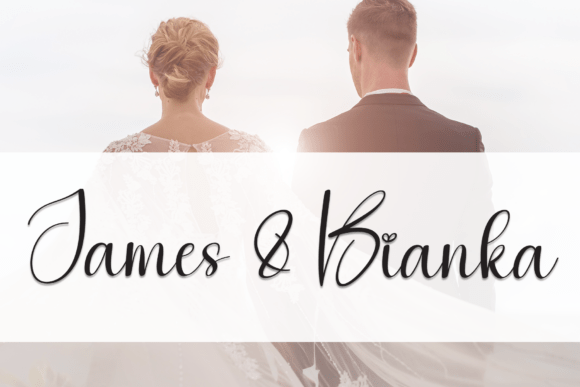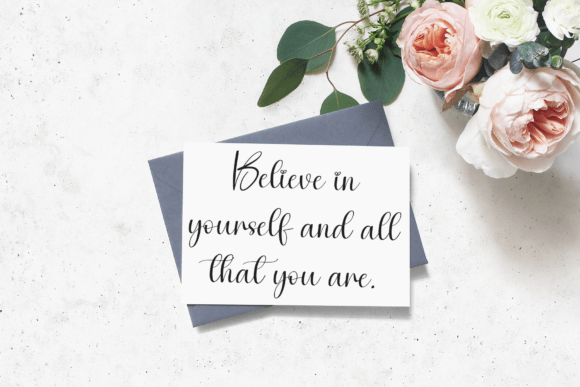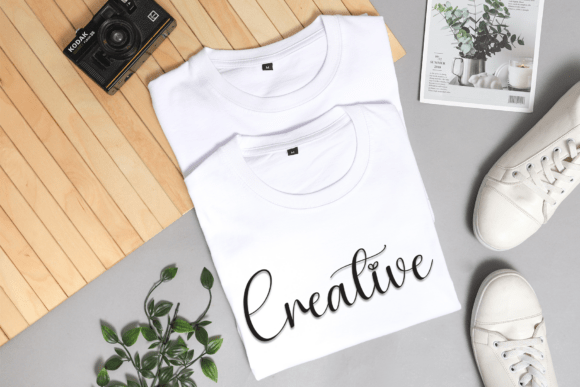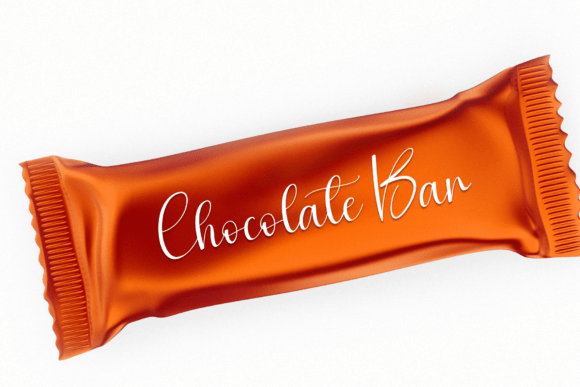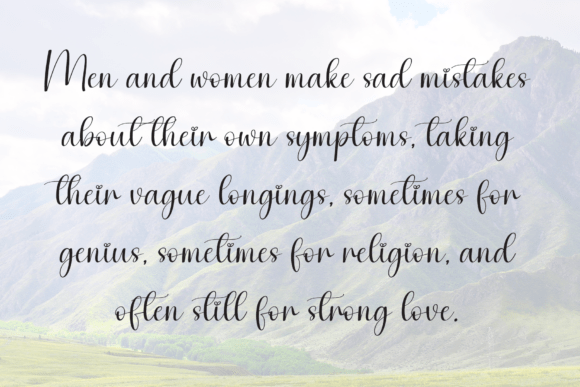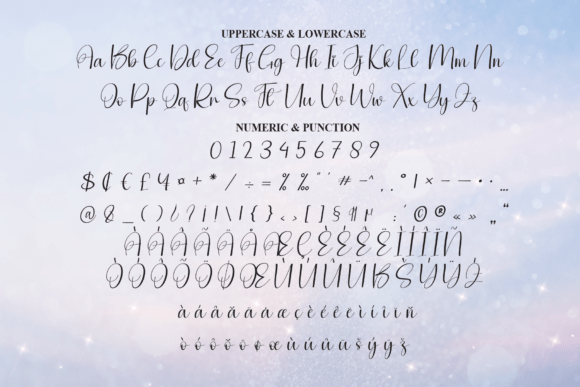
Discover the Enchanting Font: A Delicate Script Font for Dreamy Designs
In the world of typography, few fonts capture the essence of whimsy and elegance as perfectly as the Enchanting Font. This delicate script font is designed to add a touch of magic to your designs, with its soft handwritten flow and intricate swashes. Whether you’re crafting a fairy tale theme, creating a brand identity that exudes wonder, or simply looking for a font that adds a sprinkle of elegance to your project, Enchanting is the perfect choice.
The Characteristics of Enchanting Font
Enchanting Font is a script font that boasts a range of characteristics that set it apart from other fonts in its category. Some of its key features include:
- Delicate and Refined: Enchanting Font is crafted with precision and care, resulting in a delicate and refined appearance that is perfect for designs that require a touch of sophistication.
- Magical Swashes: One of the standout features of Enchanting Font is its use of magical swashes. These elegant flourishes add a touch of whimsy and wonder to your designs, making them perfect for fairy tale themes and other projects that require a sense of enchantment.
- Soft Handwritten Flow: Enchanting Font has a soft handwritten flow that gives it a personal and organic feel. This makes it ideal for designs that require a human touch, such as branding and advertising materials.
Uses for Enchanting Font
Enchanting Font is a versatile font that can be used in a wide range of design projects. Some of the most popular uses for this font include:
- Fairy Tale Themes: Enchanting Font is perfect for fairy tale themes, with its magical swashes and delicate appearance evoking the sense of wonder and enchantment that is characteristic of these stories.
- Branding and Advertising: The soft handwritten flow and elegant appearance of Enchanting Font make it a great choice for branding and advertising materials, such as logos, business cards, and brochures.
- Wedding and Event Design: Enchanting Font is also a popular choice for wedding and event design, with its delicate and refined appearance making it perfect for invitations, programs, and other materials.
- Digital Design: Enchanting Font can be used in a wide range of digital design projects, including social media graphics, website headers, and more.
Tips for Using Enchanting Font
To get the most out of Enchanting Font, here are a few tips to keep in mind:
- Use it Sparingly: While Enchanting Font is a beautiful font, it can be overwhelming if used too much. Use it sparingly to add a touch of elegance and wonder to your designs.
- Pair it with Other Fonts: Enchanting Font pairs well with a range of other fonts, including sans-serif fonts and serif fonts. Experiment with different pairings to find the one that works best for your design.
- Experiment with Colors: Enchanting Font looks great in a range of colors, from soft pastels to rich jewel tones. Experiment with different colors to find the one that works best for your design.
Enchanting Font is a beautiful and versatile font that is perfect for designers and crafters who want to add a touch of magic to their designs. With its delicate script appearance, magical swashes, and soft handwritten flow, this font is ideal for a wide range of design projects, from fairy tale themes to branding and advertising materials. By following the tips outlined above, you can get the most out of Enchanting Font and create designs that are truly enchanting.